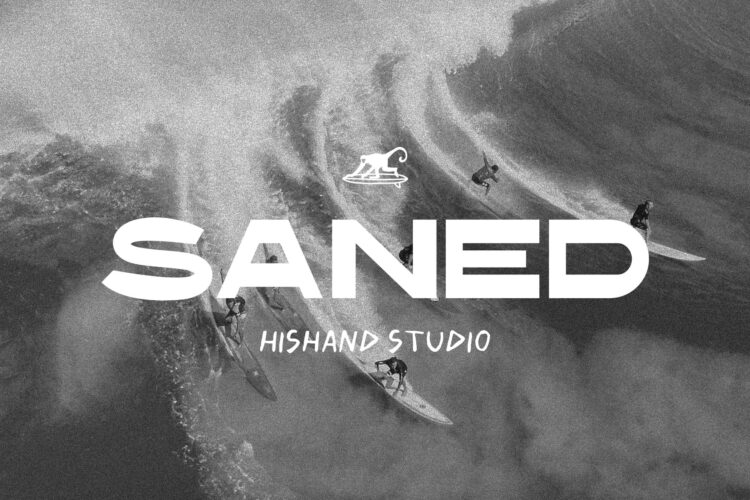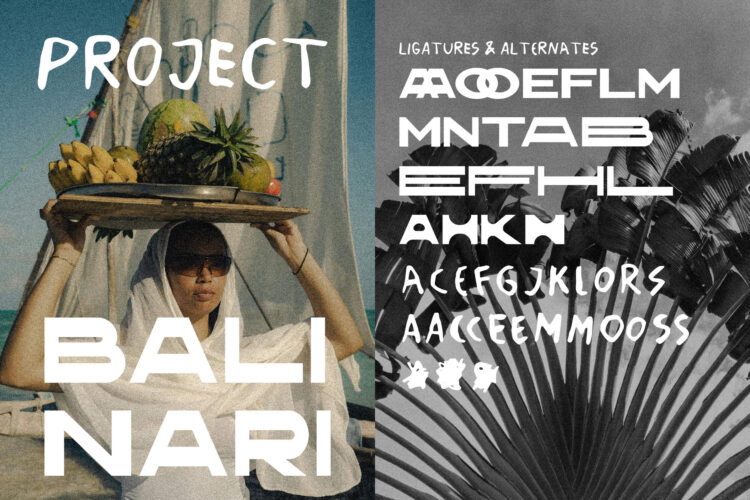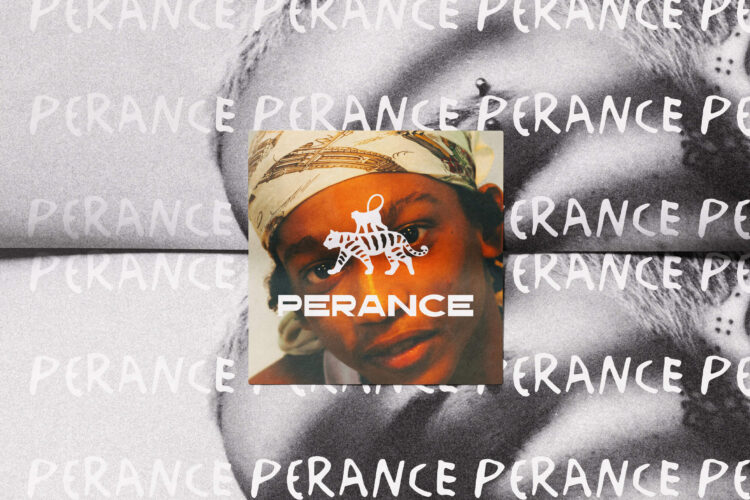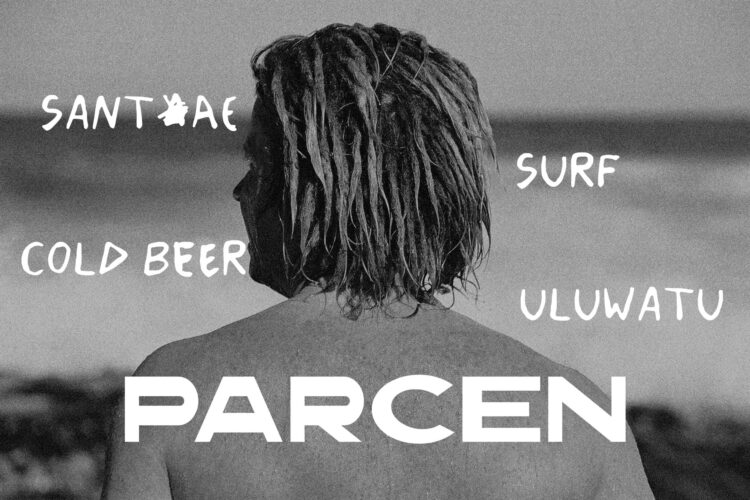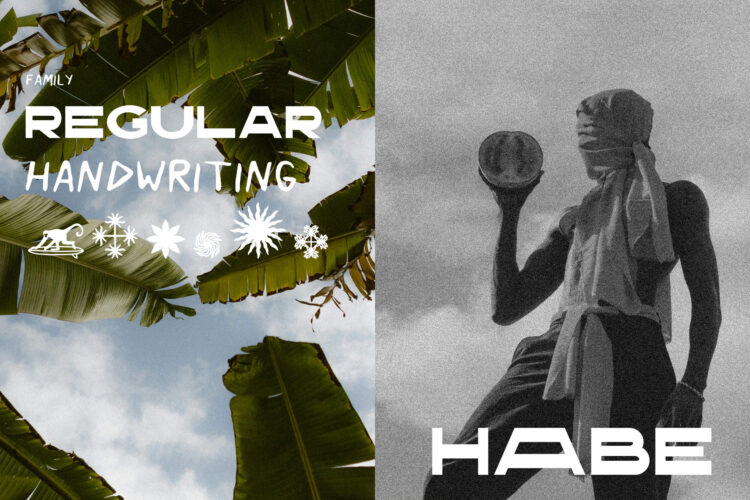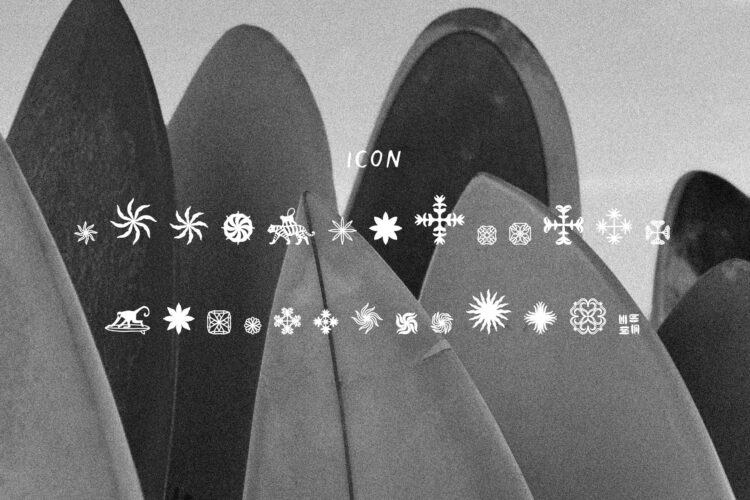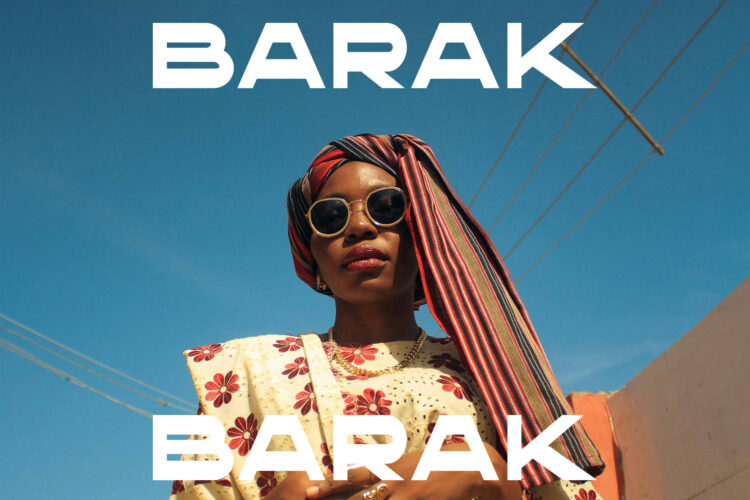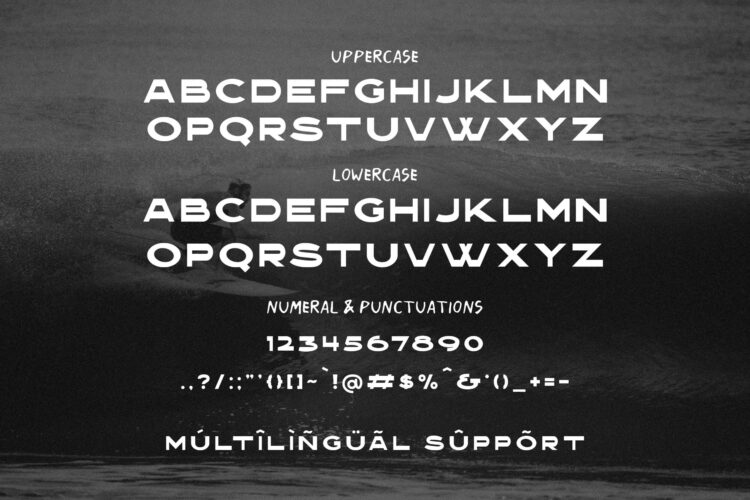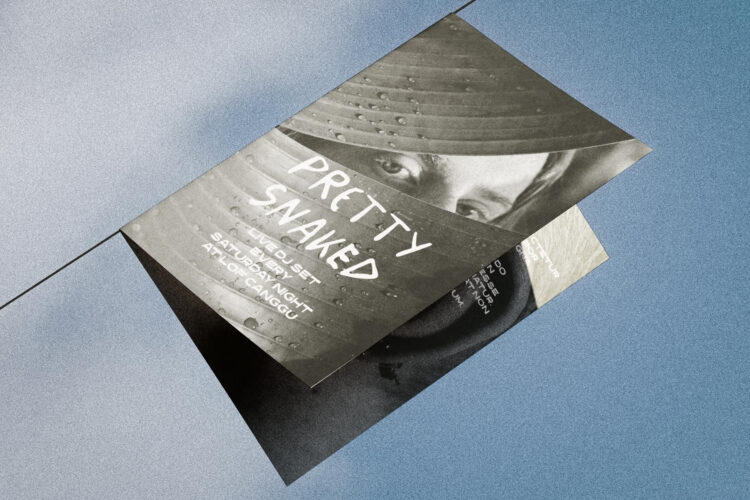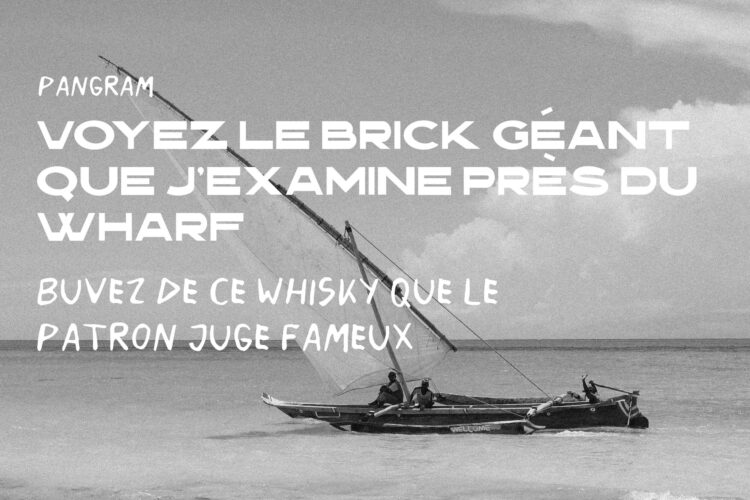
Saned is a modern sans serif display font designed to bring a clean yet striking aesthetic to any visual project. Built with carefully balanced proportions, smooth curves, and a confident overall structure, Saned offers a refined visual presence that feels both contemporary and effortlessly cool. Its clarity makes it highly legible, while its distinctive character ensures that it stands out without overpowering other design elements. This makes Saned Font Duo an excellent choice for designers who want to achieve a strong visual impact while maintaining a sense of elegance and simplicity.
Crafted with versatility in mind, Saned performs beautifully across a wide range of applications. It works seamlessly in headlines, branding materials, posters, packaging, and social media visuals—anywhere that both clarity and style are equally important. Whether used in bold, large-scale compositions or more minimal layouts, Saned adapts smoothly, giving designers the freedom to explore creative directions without losing consistency.
What truly sets Saned apart is its thoughtfully paired handwriting companion. Unlike script or signature styles, this handwriting font embraces a more natural and straightforward approach. It feels organic, simple, and authentic, making it highly approachable and easy to integrate into modern designs. The contrast between the structured sans serif and the relaxed handwriting creates a harmonious balance, adding depth and personality without feeling forced or overly decorative.
Enhancing its functionality even further, Saned Font Duo also includes a set of 26 aesthetic icons. These icons are designed in harmony with the font’s visual identity, ensuring consistency across all elements of a project. With this complete family, designers can effortlessly create cohesive, polished, and visually engaging compositions while saving time and maintaining a unified design language throughout their work, whether for professional branding systems, digital interfaces, editorial layouts, or creative marketing materials across various platforms.
Complete with
- ligatures
- alternates
- regular
- handwriting
- icon
- kerning
- multilingual support